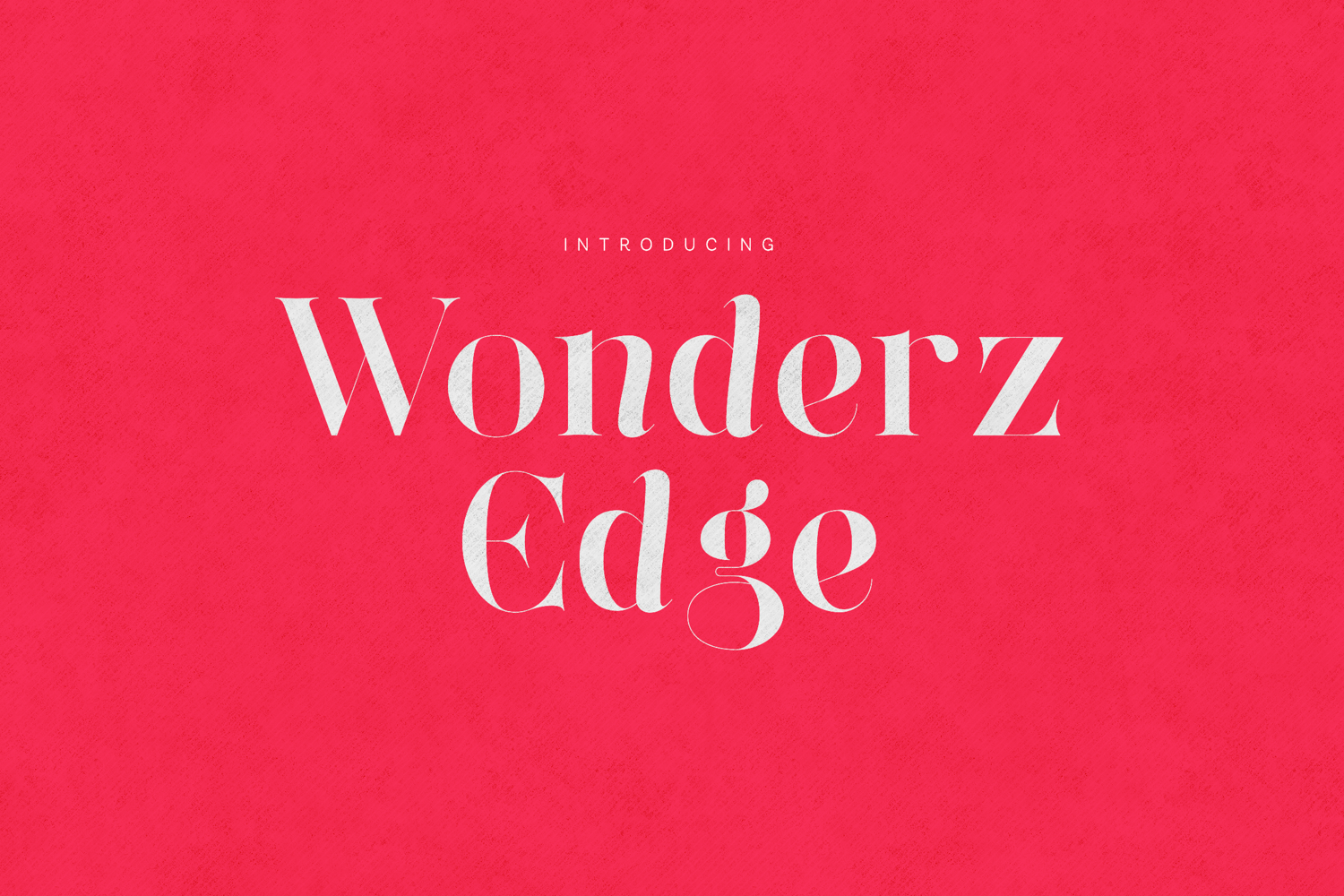
Wonderz Edge is a refined modern serif font designed with sharp elegance and contemporary sophistication. Featuring high contrast strokes, smooth curves, and distinctive character details, this typeface delivers a luxurious and editorial feel.
Perfect for branding, fashion campaigns, magazine layouts, logos, packaging, social media graphics, and high-end typography projects. Wonderz Edge includes beautifully crafted uppercase and lowercase letters, numerals, punctuation, and multilingual support.
Its stylish forms and balanced proportions make it ideal for both bold headlines and elegant body text.